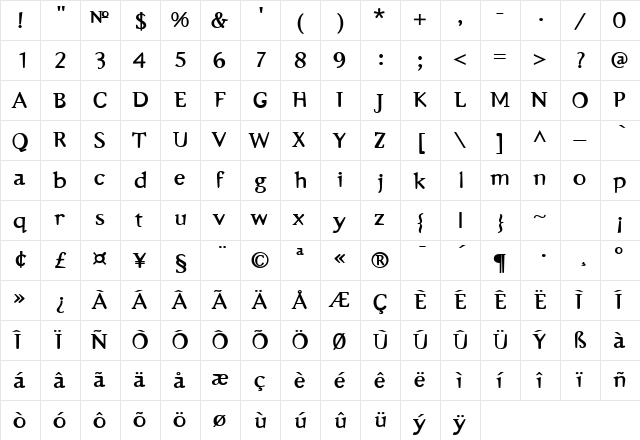
Emulate Bold
Design Context for Emulate Typeface
Emulate is a composed and adaptable typeface that performs quietly and consistently across a wide range of design contexts. Its bold stroke weight gives it real presence on the page.